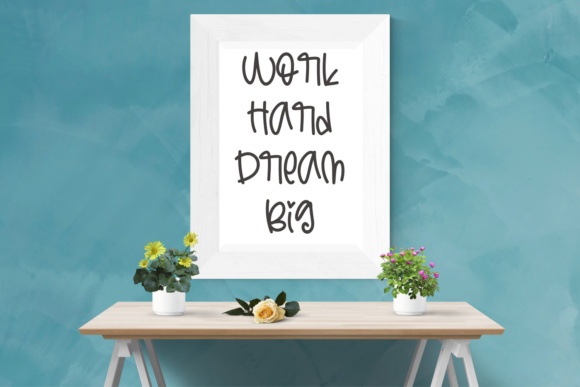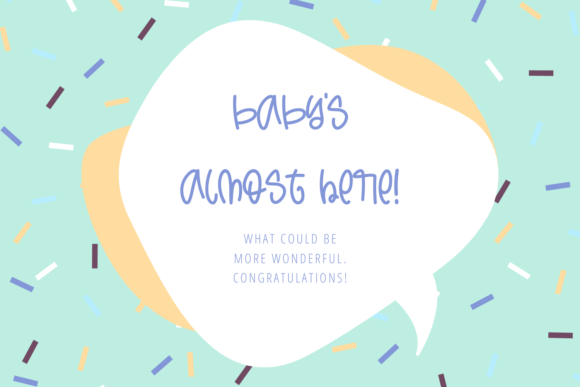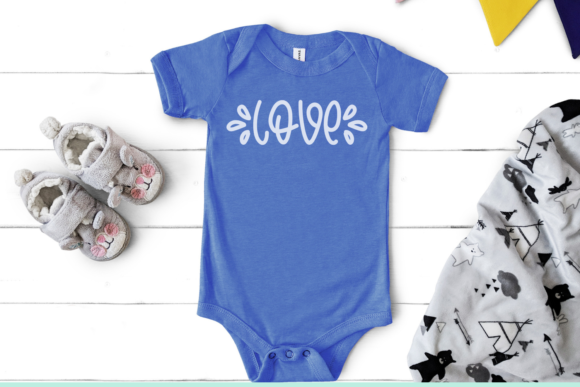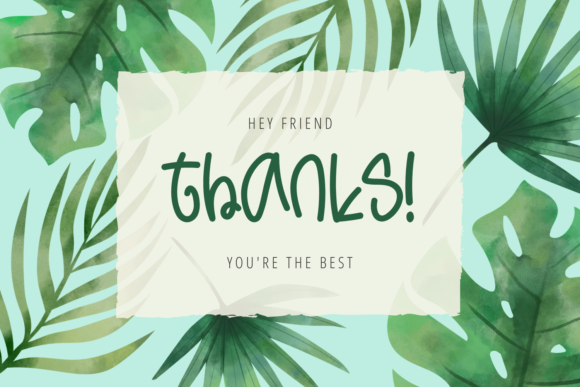
Bimbimpo Font: A Delicate and Timeless Handwritten Font for Creative Projects
In the world of typography, fonts play a crucial role in conveying the tone and personality of a brand or creative project. With thousands of fonts available, it can be overwhelming to choose the perfect one that stands out from the crowd. However, if you’re looking for a font that exudes elegance, sophistication, and a touch of whimsy, look no further than the Bimbimpo font.
What is Bimbimpo Font?
Bimbimpo is an incredibly distinct, delicate, and timeless handwritten font that has captured the hearts of designers and crafters alike. Its unique charm and character make it an excellent choice for a wide range of creative projects, from inspirational wall posters to branding and advertising materials.
Characteristics of Bimbimpo Font
So, what makes Bimbimpo font so special? Here are some of its key characteristics:
- Delicate and Elegant: Bimbimpo font features delicate and elegant strokes that give it a sophisticated and refined look.
- Handwritten: The font has a beautiful handwritten quality that adds a personal touch to any project.
- Timeless: Unlike trendy fonts that may quickly go out of style, Bimbimpo font has a timeless quality that ensures it will remain relevant for years to come.
- Distinct: The font’s unique character and charm make it stand out from more traditional fonts.
Uses of Bimbimpo Font
Bimbimpo font is incredibly versatile and can be used for a wide range of creative projects, including:
- Inspirational Wall Posters: The font’s elegant and refined quality makes it perfect for inspirational quotes, posters, and prints.
- Branding and Advertising: Bimbimpo font can add a touch of sophistication and elegance to branding and advertising materials, such as logos, business cards, and brochures.
- Stationery and Invitations: The font’s handwritten quality makes it ideal for stationery, invitations, and other paper goods.
- Digital Media: Bimbimpo font can also be used for digital media, such as social media graphics, blog posts, and website headers.
Why Choose Bimbimpo Font?
With so many fonts available, why choose Bimbimpo font for your creative project? Here are some compelling reasons:
- Unique and Memorable: Bimbimpo font is unlike any other font out there, making it a great choice for brands and projects that want to stand out.
- Elegant and Sophisticated: The font’s delicate and refined quality adds a touch of elegance and sophistication to any project.
- Easy to Read: Despite its delicate nature, Bimbimpo font is easy to read, making it perfect for body text and headlines.
- Versatile: The font can be used for a wide range of creative projects, from print to digital media.
In conclusion, Bimbimpo font is an exceptional choice for designers and crafters looking for a unique, elegant, and timeless handwritten font. Its delicate and refined quality, combined with its versatility and ease of use, make it perfect for a wide range of creative projects. Whether you’re working on inspirational wall posters, branding and advertising materials, or digital media, Bimbimpo font is sure to add a touch of sophistication and elegance to your work.